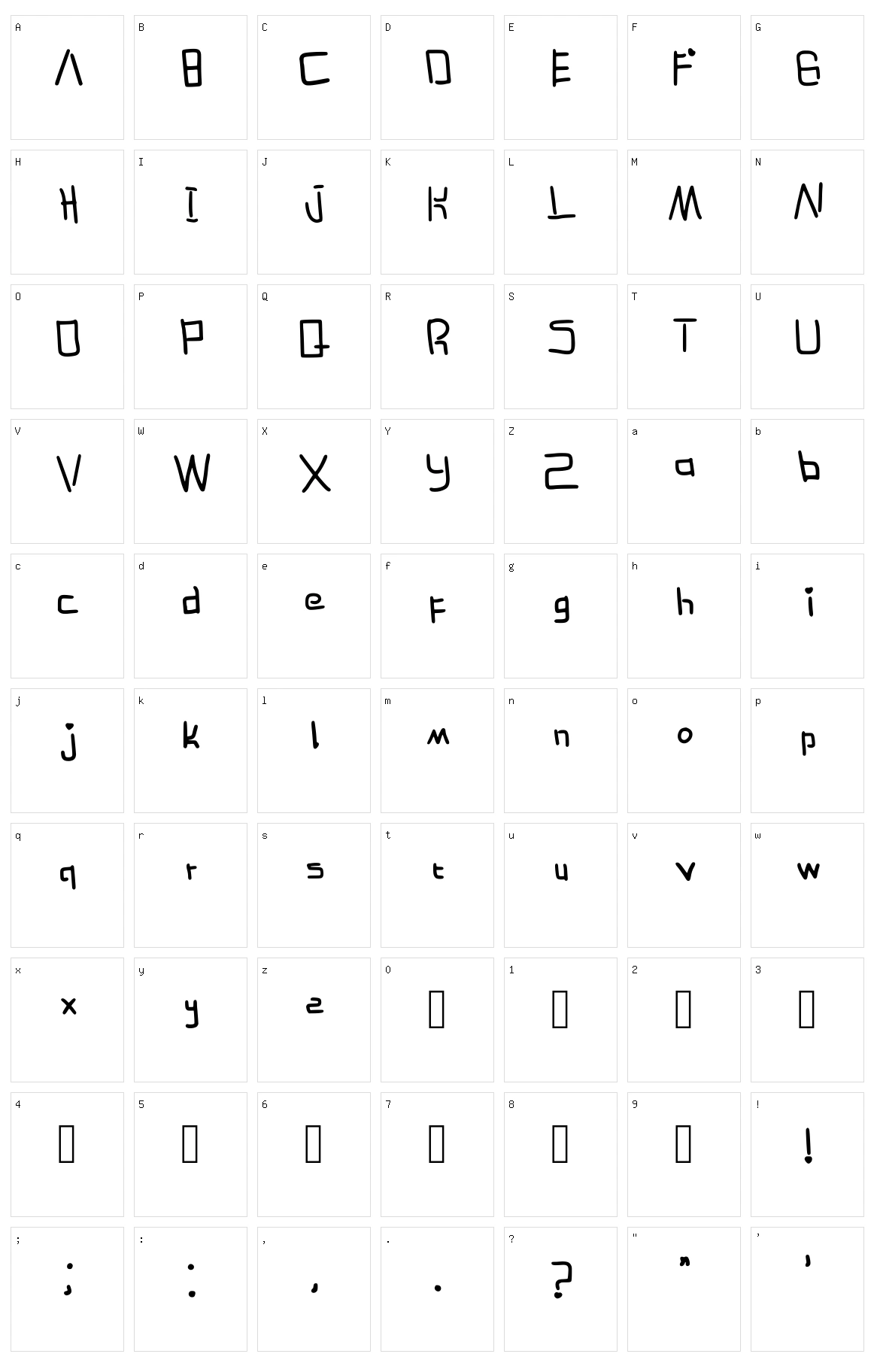
The free font Biragata is carefully designed by Muhammad Rafif, showcasing a thoughtful balance of creativity and usability and falls under the Script font style. When you download the ZIP file, it contains only 8.18 KB of font files, making it lightweight and quick to download. Please review the license details below to understand permitted usage and distribution rights. If license information is not available, we recommend using this font for personal projects only or contacting the author directly for commercial usage permissions.